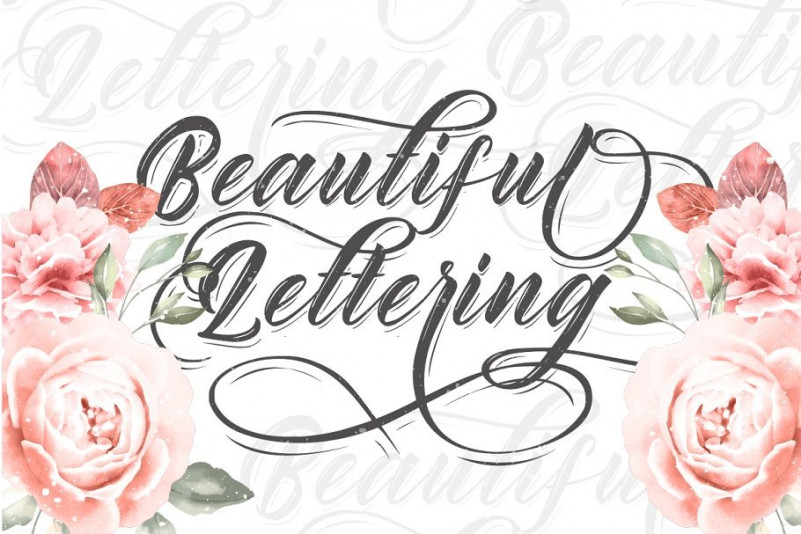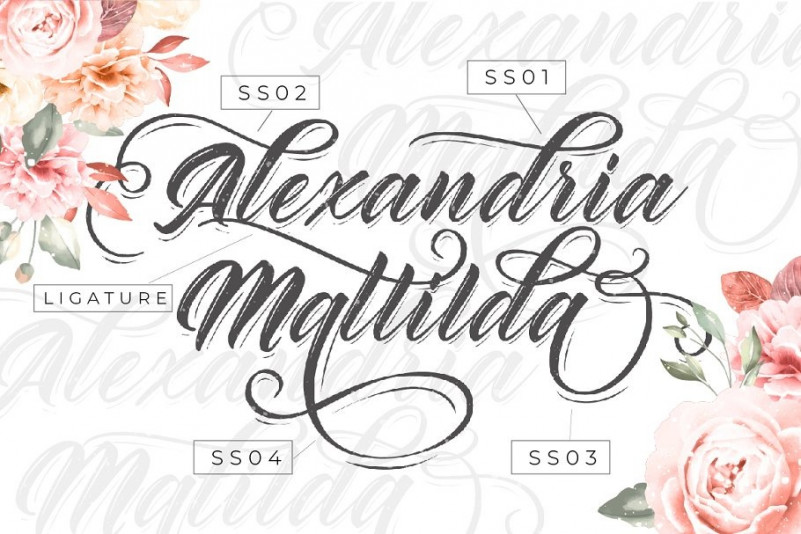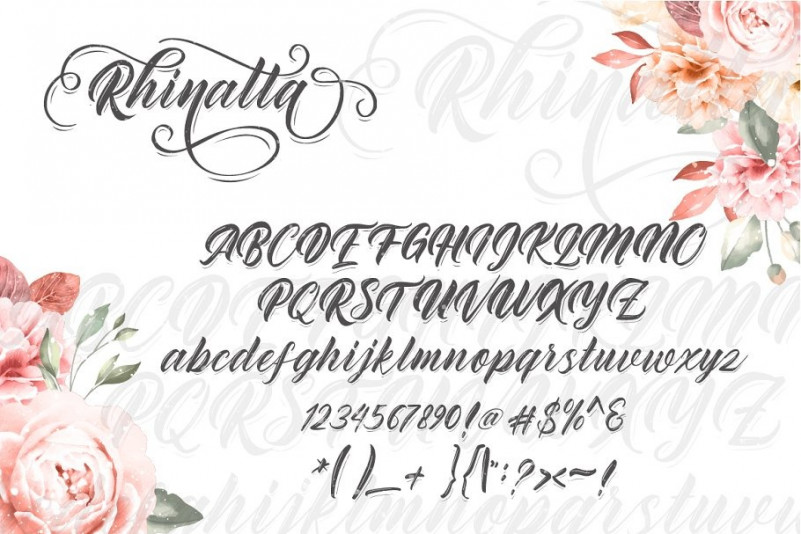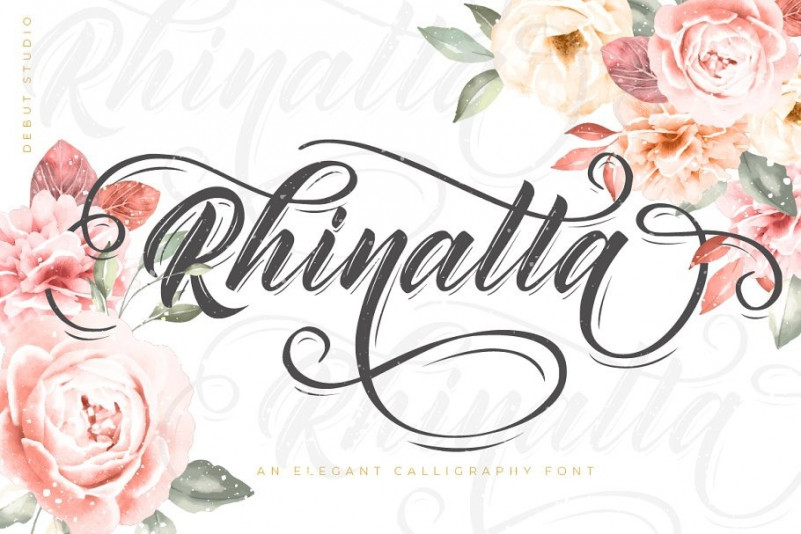
Rhinatta Script Font Demo
Rhinatta Calligraphy Script – Free Demo
This a Elegant modern calligraphy and this perfect for all your designs project, event and more! Introducing Rhinatta Font. Modern handwritten font with a quick-dry stroke. An Elegant script font with Highlight and shadow effect! It’s a great font for fashion, apparel projects, signature, album cover, logo, branding, magazine, social media, & advertisements, but also works great for other projects.